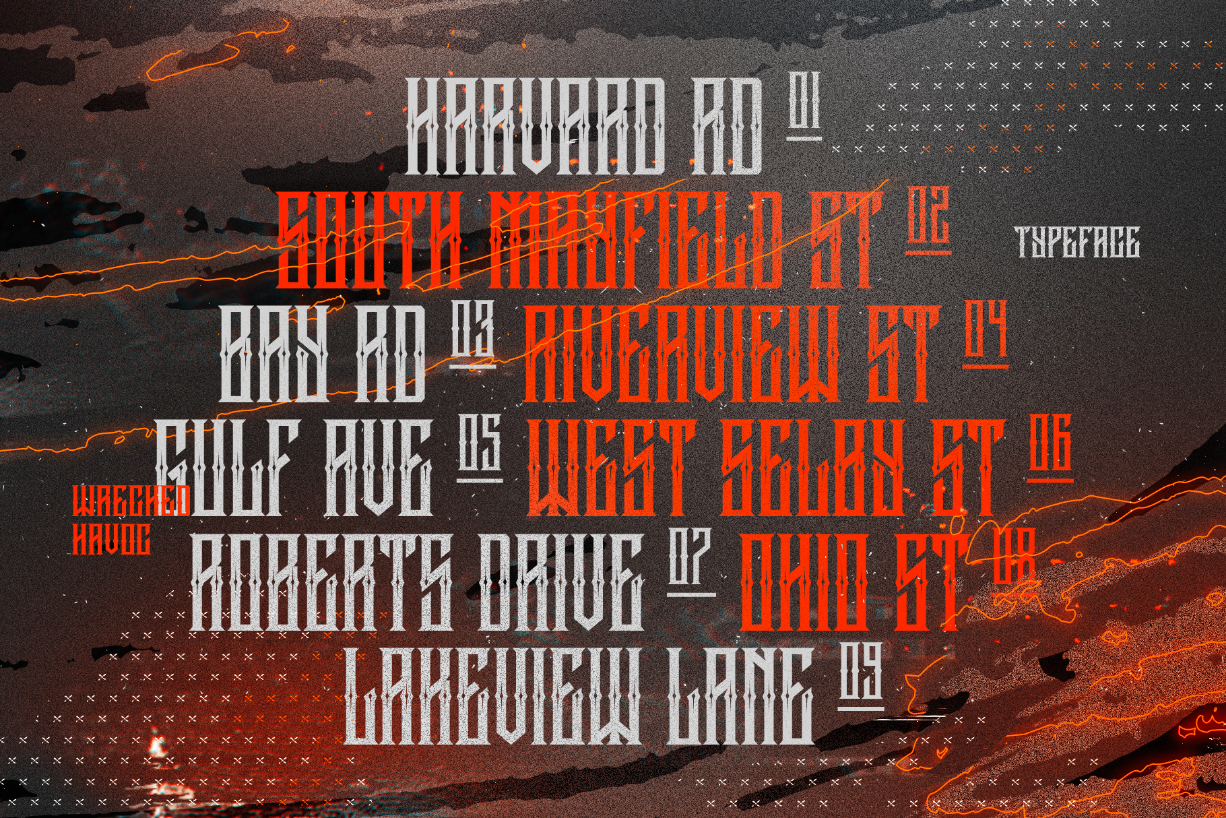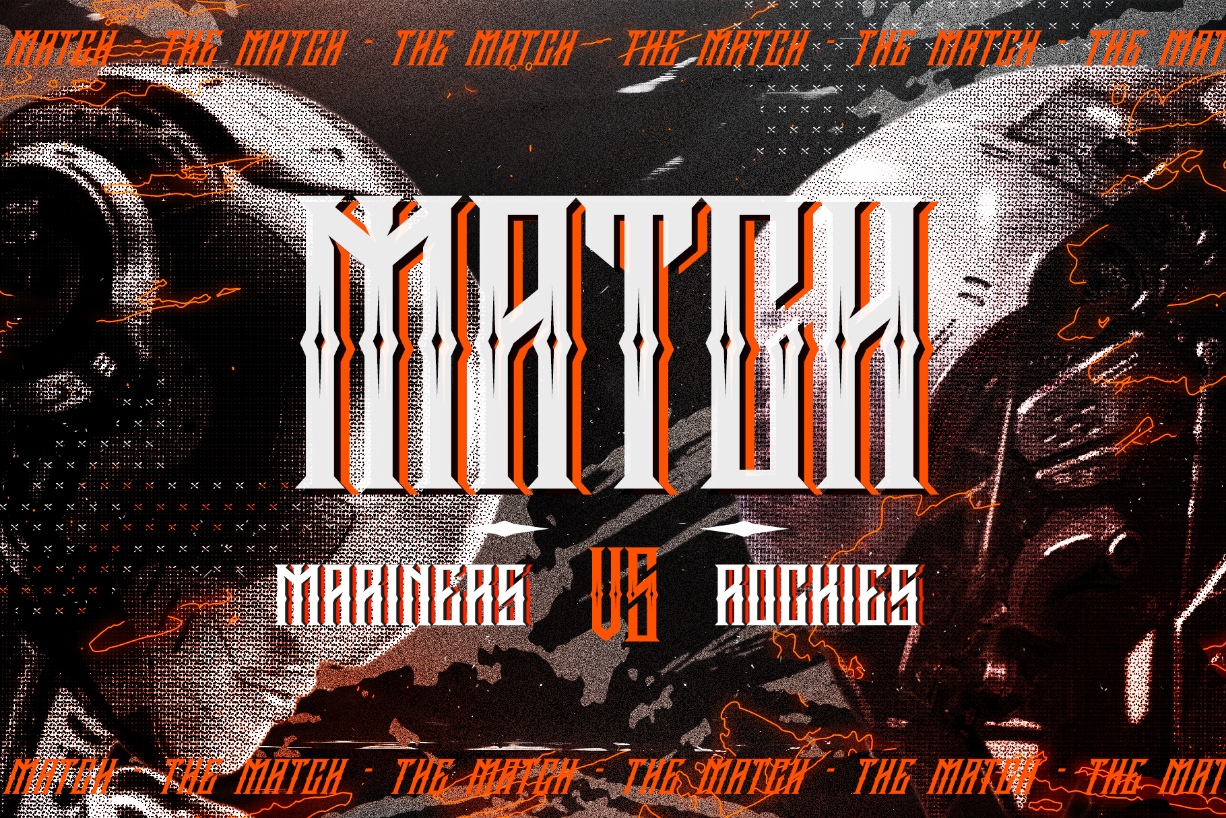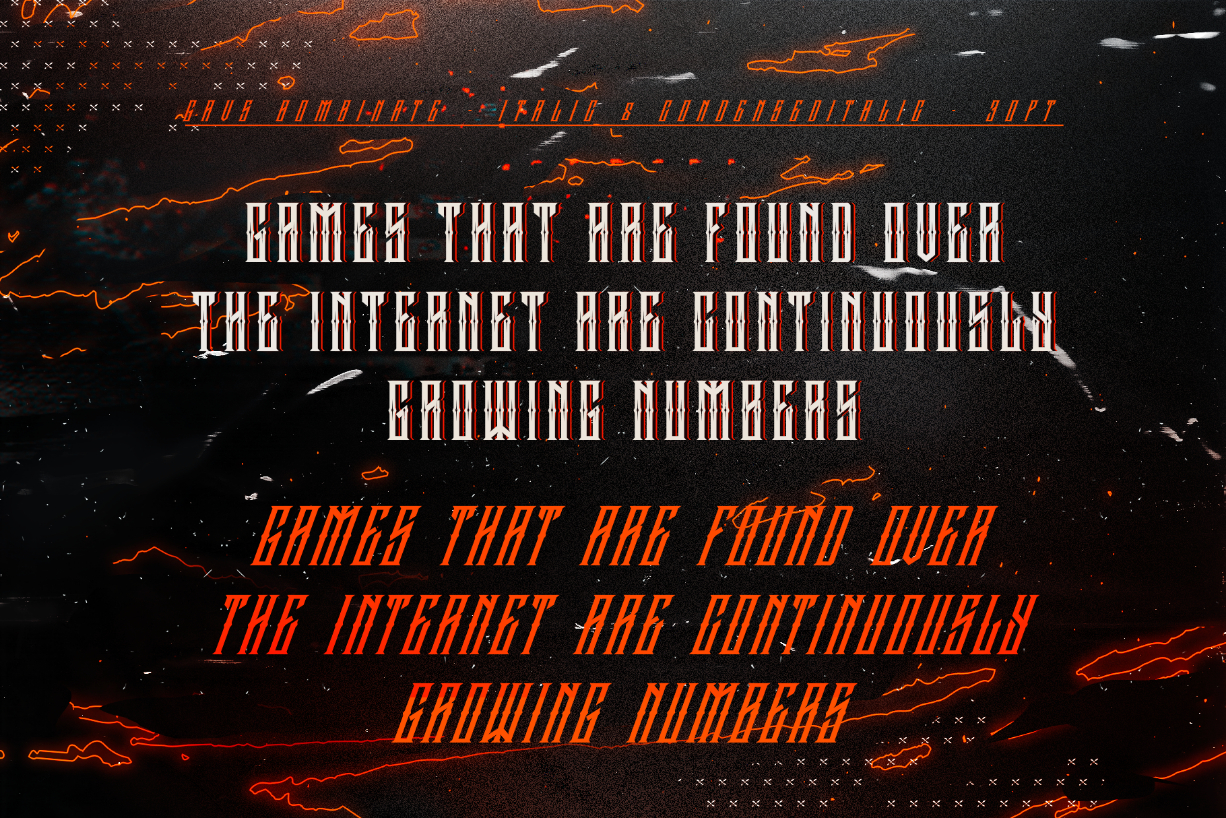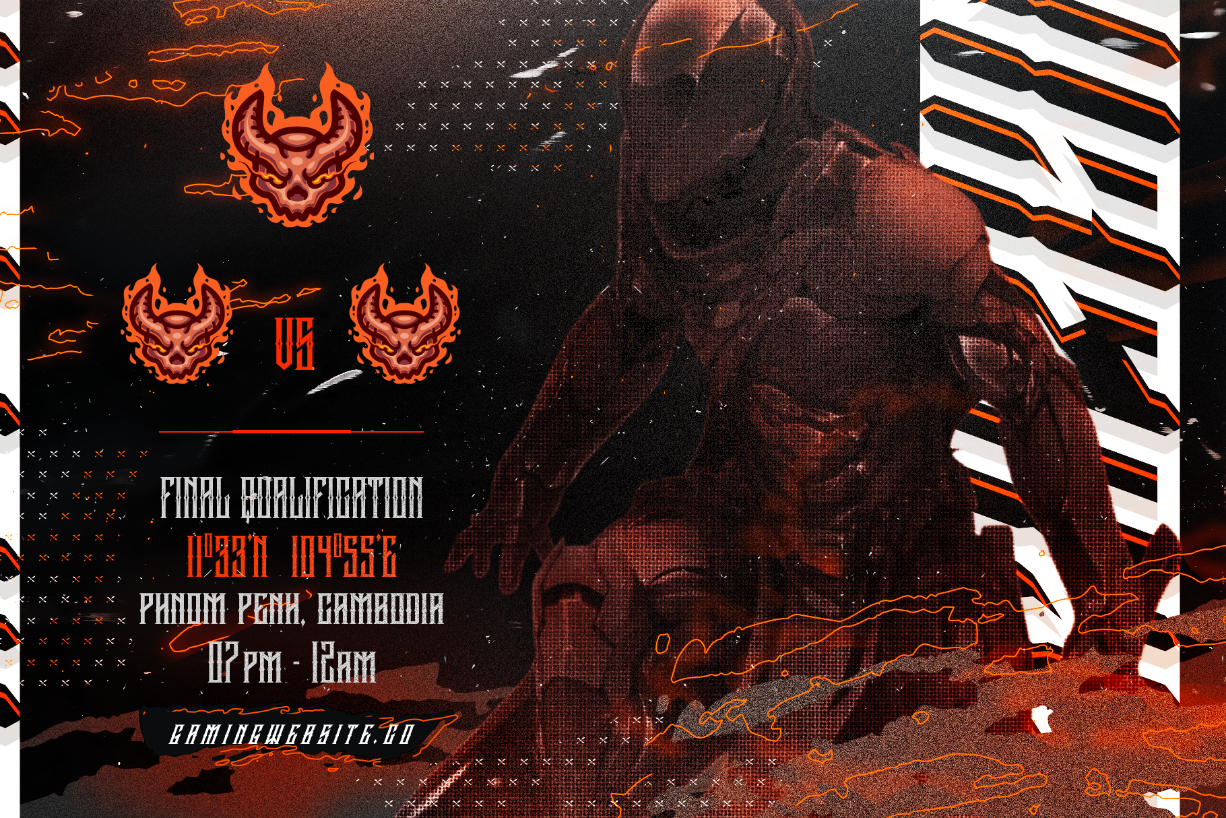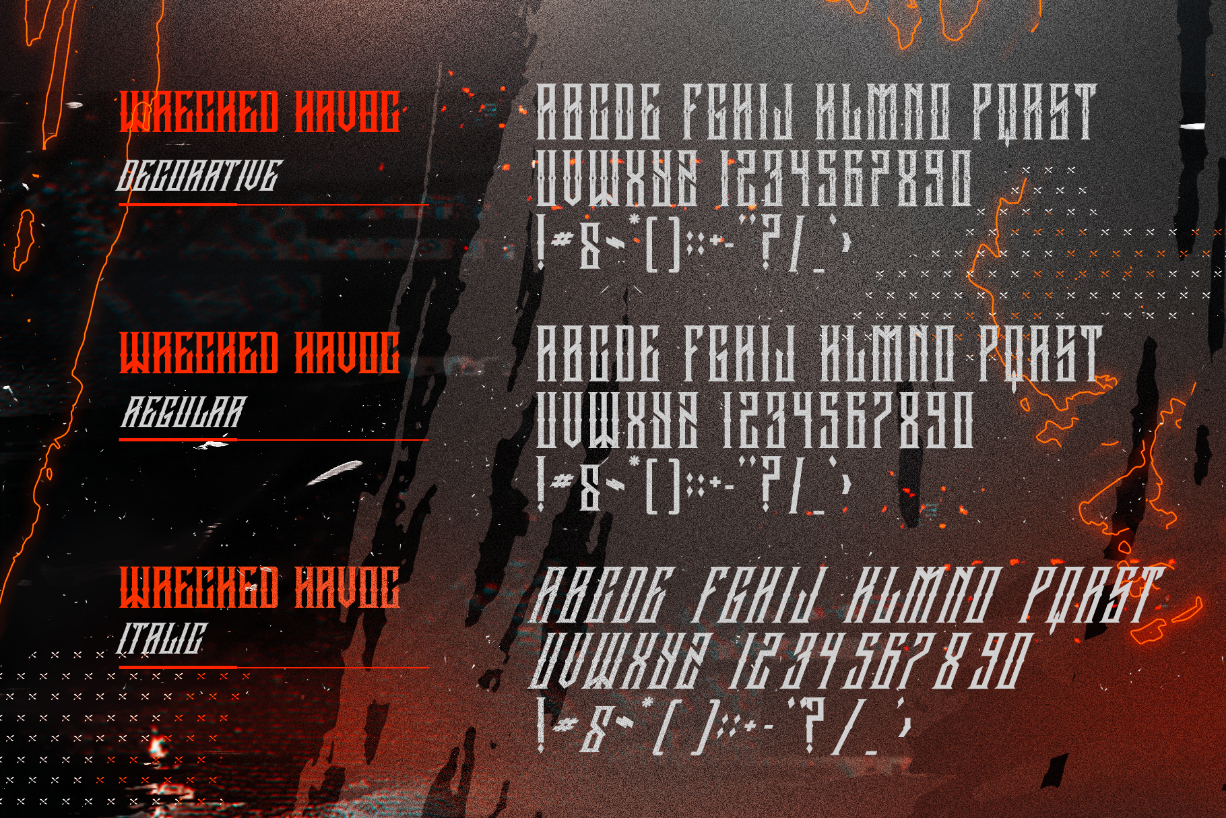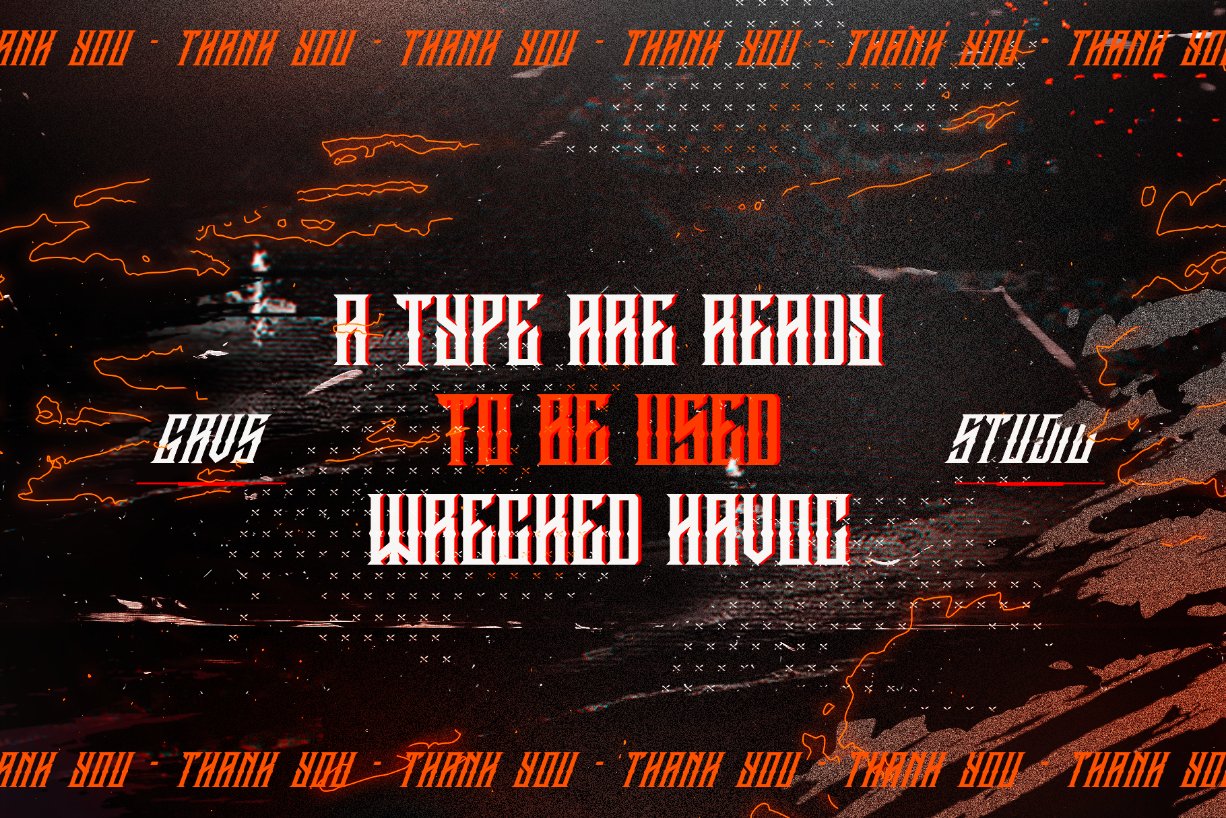
Wrecked Havoc Font
About Wrecked Havoc Font
Wrecked Havoc is a sharp, imposing and authentic blackletter font. Masterfully designed to become a true favorite, this font has the potential to bring each of your creative ideas to the highest level!